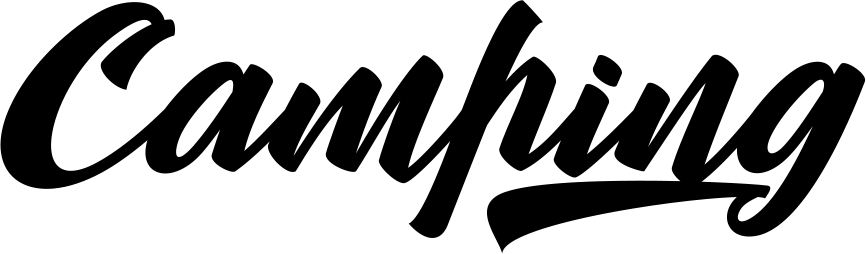
Camping Font
With elegance being an inseparable trait of its exquisite characters, Camping manages to do an excellent job vis-à-vis achieving a modern interface. Being a stylish cursive font, Camping is not a hundred percent easy to read due to its cursive design.
However, capable of highlighting the aesthetic aspect of your typography, Camping is sure to end up offering you a first-class invitation, book cover, poster, or anything else.